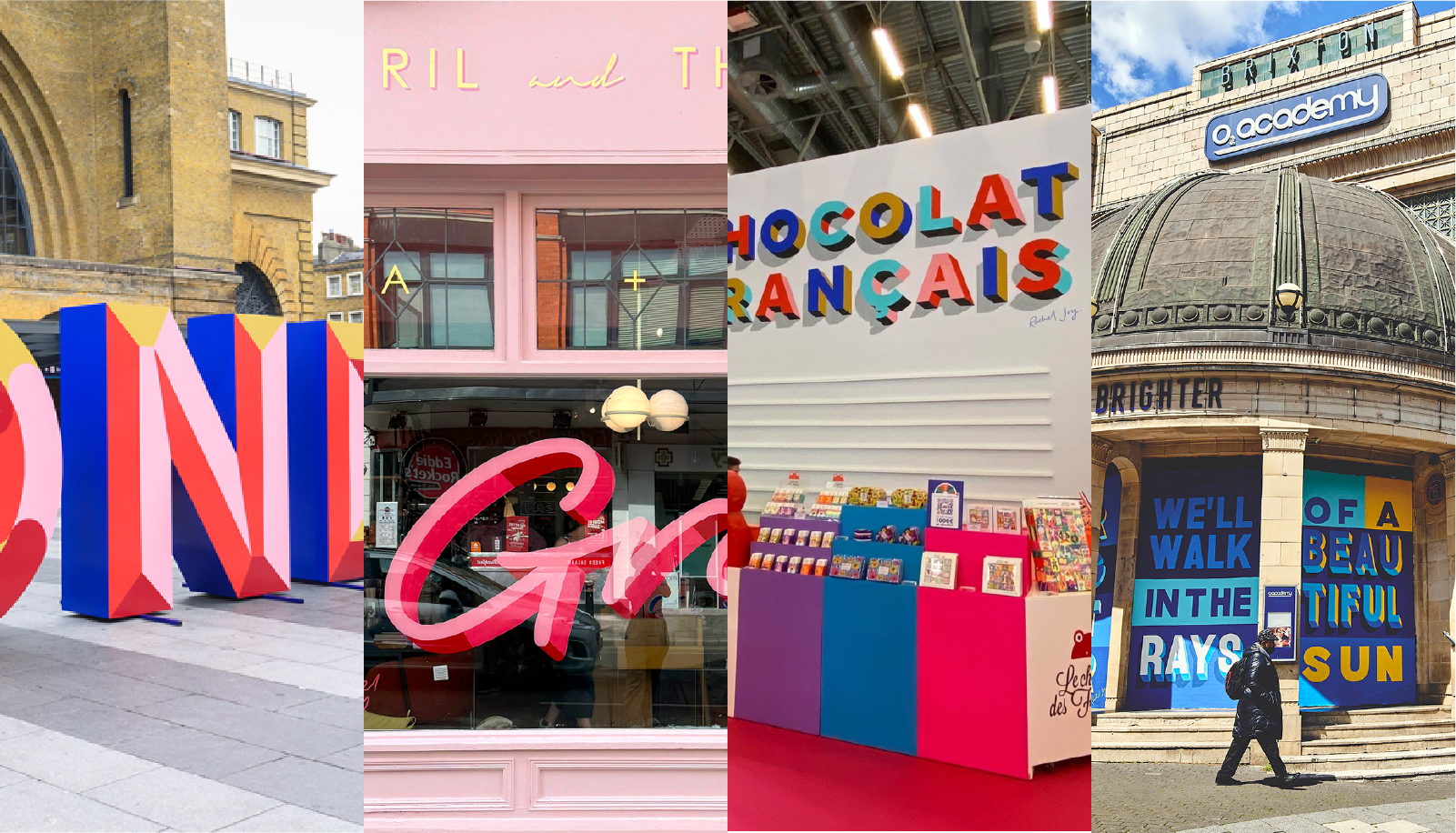
Talk: Rachel Joy Price
Shaping Letters, Spreading Joy
Rachel Joy will take you on a whistle-stop tour of her journey to a life full of letters (including her connection to the Titanic!) She will share some of her favourite jobs shaping letters for brands worldwide, and the projects that have given her blank canvases on which to spread joy in the shape of large 3D colourful words…